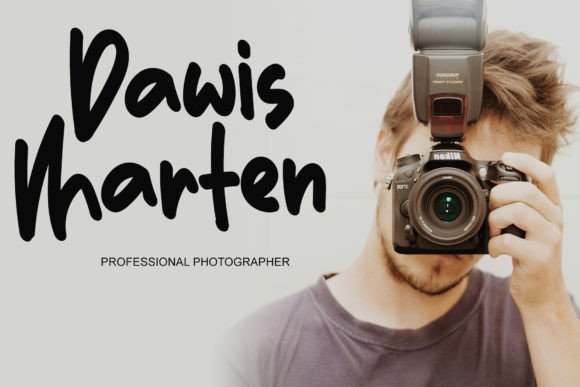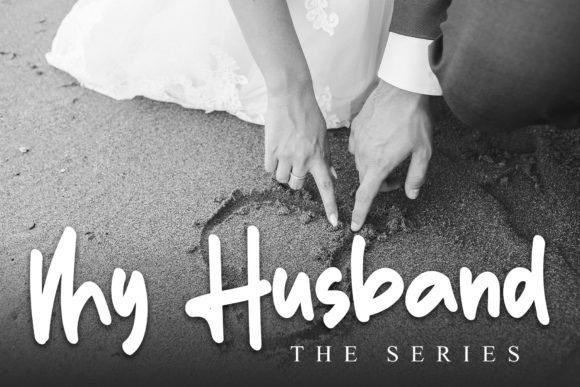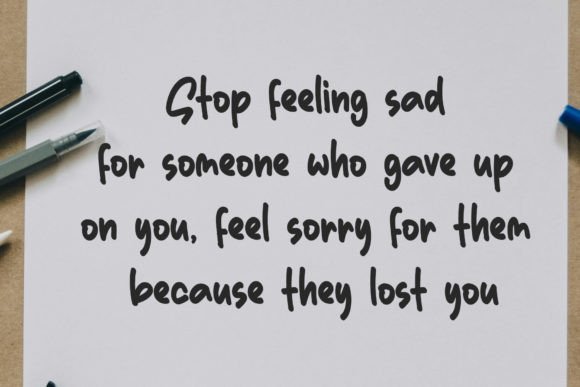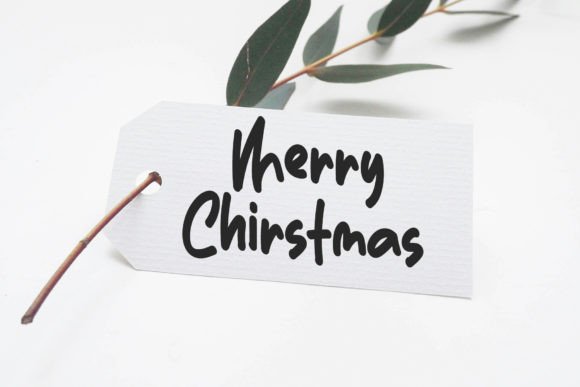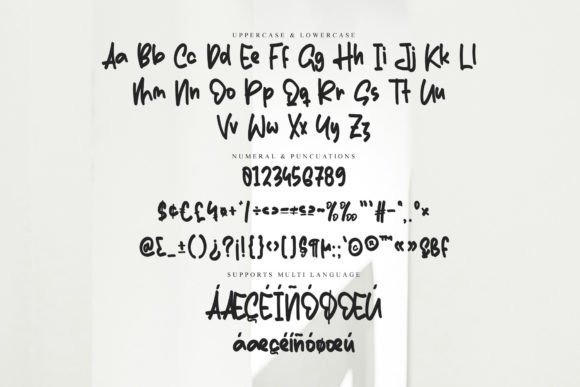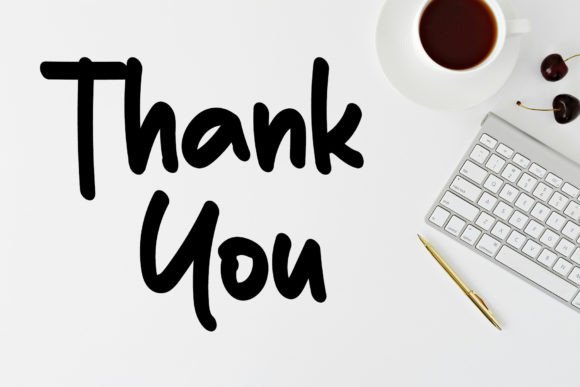
The Dashing Rainbow Font: A Stylish Handwritten Delight
I’ll never forget the time I was working on a project for a client who wanted a font that was both elegant and playful. I spent hours scouring the internet for the perfect match, but nothing seemed quite right. That was until I stumbled upon the Dashing Rainbow font. With its stylish handwritten flair and contemporary atmosphere, it was love at first sight! In this article, I’ll share my experience with this beautiful font, its features, and how to make the most of it in your designs.
I’ve had the pleasure of working with Dashing Rainbow on several projects, and here’s what I think:
- ✨ Beautifully crafted letters: Each letter is meticulously designed to create a sense of fluidity and harmony.
- ✅ Versatile and varied: The font offers a range of styles and glyphs, making it perfect for a variety of projects.
- 💫 Easy to read: Despite its elegant nature, Dashing Rainbow remains highly legible, even at smaller font sizes.
Now, I’m not saying it’s perfect. There are a few quirks to be aware of:
- 🤔 Limited suitability for body text: While Dashing Rainbow is stunning, it’s best used for headings or short paragraphs. Its elegant nature can get lost in longer blocks of text.
- ⚠️ Some glyphs require manual adjustment: Depending on the platform you’re using, you might need to manually adjust certain glyphs to get the best results.
- Experiment with the font’s OpenType features, such as stylistic alternates and glyphs, to add some extra flair to your design.
The Story Behind Dashing Rainbow
Dashing Rainbow was inspired by the timeless beauty of classic calligraphy. Its creator wanted to craft a font that would bring a touch of elegance and sophistication to any project. With its impeccable form and balanced design, Dashing Rainbow is the perfect choice for designers, crafters, and creative hobbyists looking to add a little extra magic to their work.
| Is Dashing Rainbow suitable for body text? | While Dashing Rainbow is beautiful, it’s best used for headings or short paragraphs. Its elegant nature can get lost in longer blocks of text. |